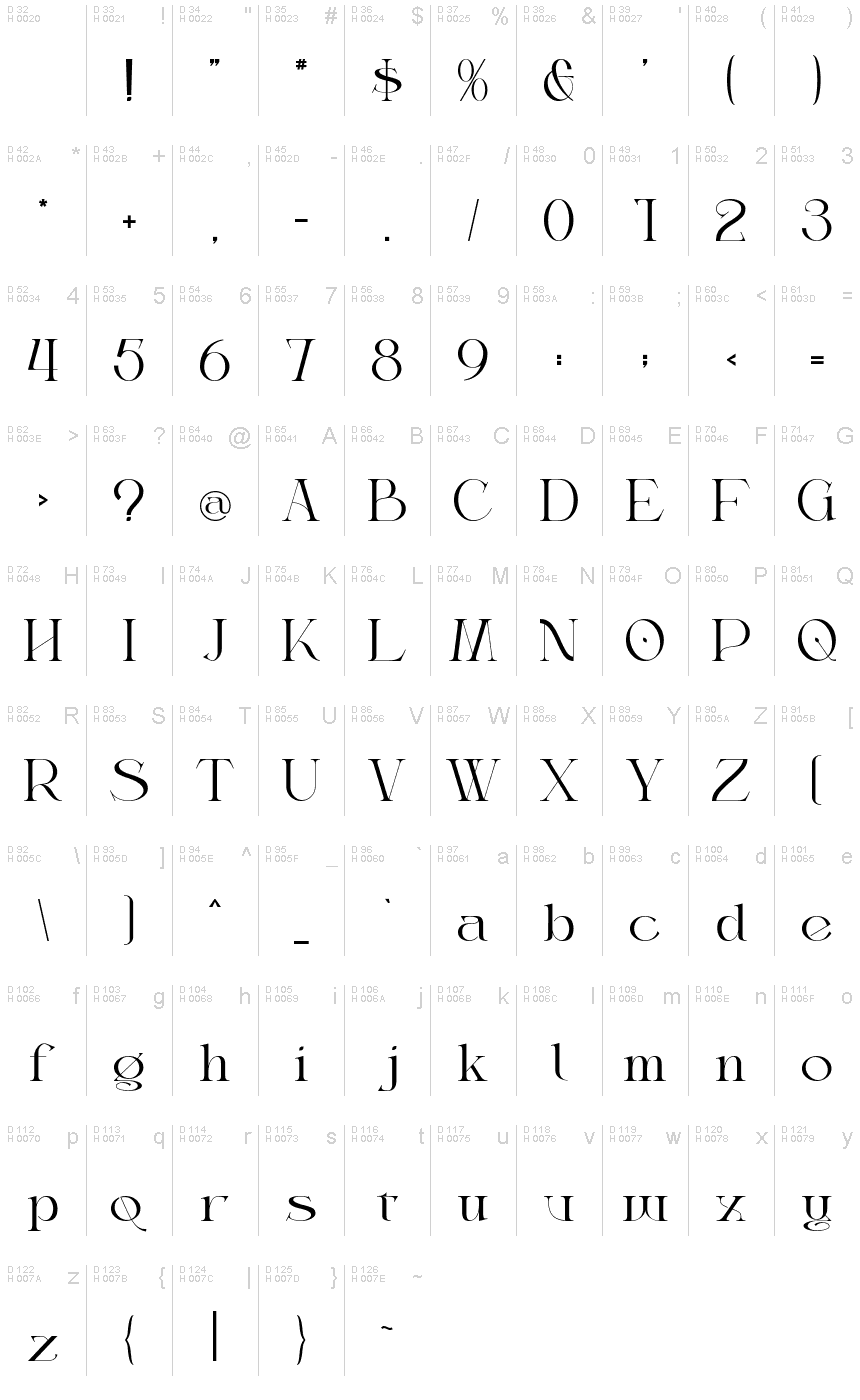
Thanjidor
Thanjidor, the creation of renowned designer Kong Font, is an exquisite serif font that exudes elegance in every curve and stroke. Its semi-light weight adds a touch of sophistication to any project it graces.
With its timeless charm, Thanjidor is perfectly suited for luxury brand logos and high-end fashion magazines. Its graceful serifs and delicate letterforms also make it an excellent choice for wedding invitations, elegant menus, and refined editorial layouts.
Allow Thanjidor to elevate your designs with its refined beauty and create an unforgettable visual experience.